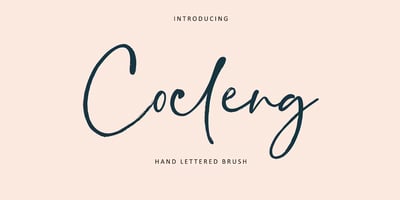
Cocleng Brush
Cocleng Brush font
Cocleng Brush Font Family was designed by Alam Syahril and published by Realtype. Cocleng Brush contains 1 styles and family package options. INTRODUCE COCLENG HANDWRITING FONTS.Cocleng is a natural brushed font with a dirty textures. This font will give you a fresh and edgy looking design and will look beautiful with offers, fashion magazines, logos & more.